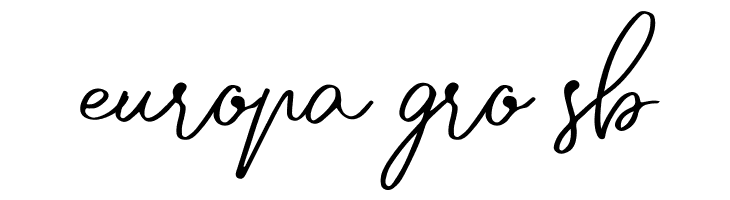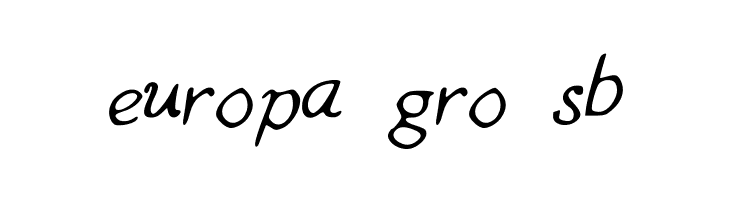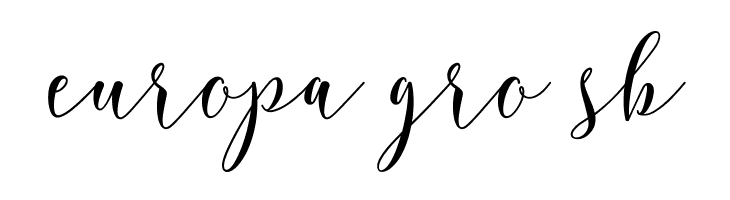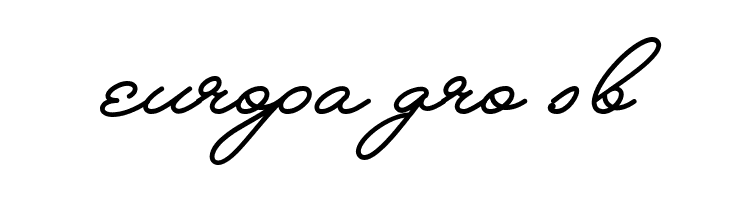
Light, whimsical handwritten script with a pronounced italic slant.
Elegant, handwritten cursive script with a whimsical, airy style.
Casual handwritten font with rounded, playful strokes.
A whimsical, handwritten script with tall, narrow, and playful strokes.
Casual, handwritten script with tall, narrow, and flowing strokes.
Thin, casual handwritten script with tall, narrow letters.
Elegant, cursive handwritten script with fluid connections.
Casual handwritten script with playful, fluid strokes.
Modern, playful handwritten script with fluid, casual strokes.
A lively handwritten script with tall, narrow, and fluid letterforms.
Bold, modern script font with a handwritten, playful style.
Handwritten script font with a natural, elegant flow.
Expressive, handwritten script with tall, dynamic strokes.
Energetic handwritten script with tall, narrow, and fluid letterforms.
Playful, expressive handwritten script with tall, narrow forms.
Casual, handwritten script with tall, flowing characters.
Elegant, connected handwritten script with thin strokes.
Thin, elegant handwritten script with a casual, flowing style.
Energetic, brush-style handwritten script with playful, fluid strokes.
A relaxed, handwritten script with a natural flow.
Expressive handwritten script with energetic, casual strokes.
Elegant handwritten script with tall, narrow forms and high contrast.
Elegant, handwritten script with connected, flowing strokes.
Handwritten script with tall, narrow, and fluid strokes.
Casual, monoline handwritten script with tall, narrow forms.
Casual handwritten script with playful loops and fluid strokes.
Expressive handwritten script with a lively, informal style.
Elegant, handwritten cursive script with high contrast and connected strokes.
Elegant handwritten script with connected, flowing strokes.
Playful handwritten script with smooth, connected strokes.
Expressive handwritten script with dynamic, sweeping strokes.
Handwritten cursive script with smooth, connected strokes.
A modern, handwritten script with tall, elegant letterforms and playful swashes.
Thin, whimsical handwritten script with playful loops.